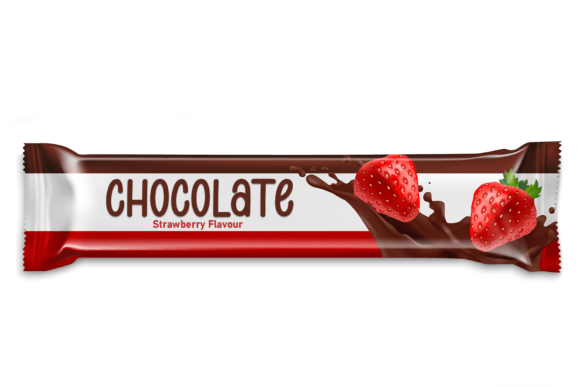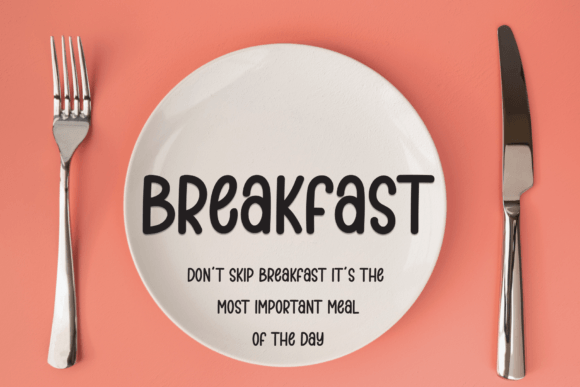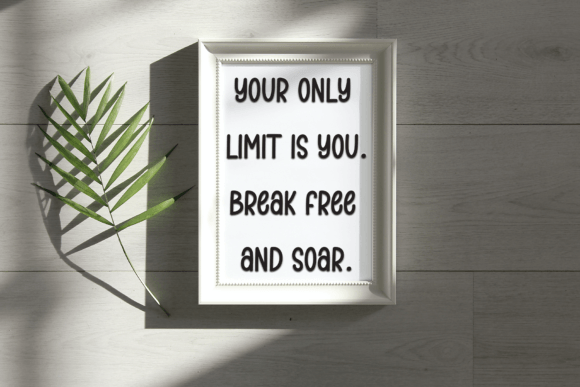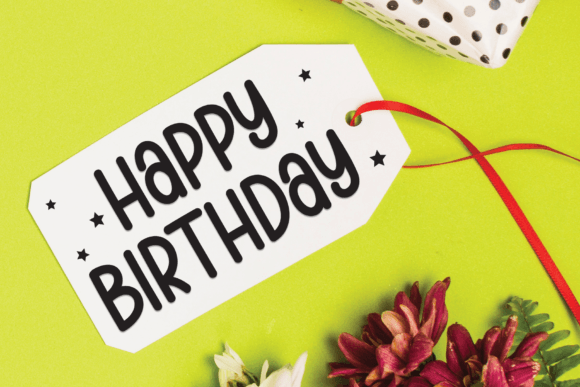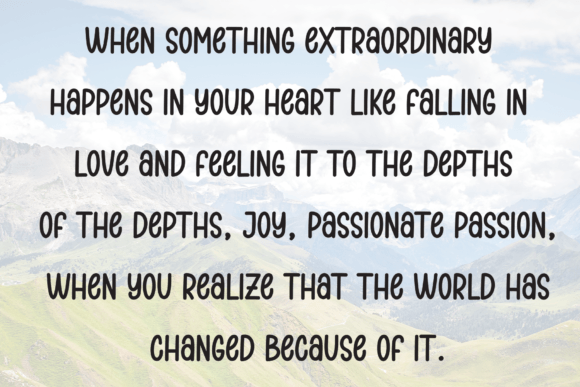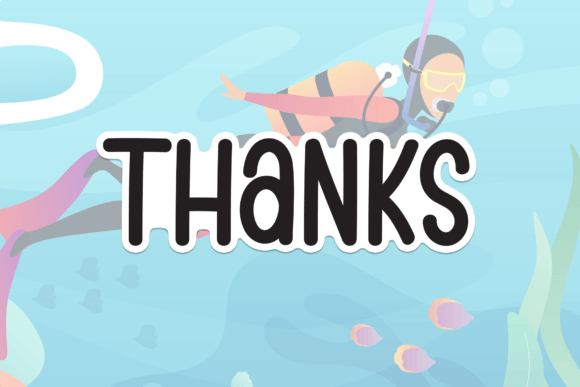
Introduction to Seadiving Font
Have you ever found yourself stuck on a creative project, searching for that perfect font to give it that extra oomph? I know I have. It’s like trying to find a missing puzzle piece – until you stumble upon it, the whole design just doesn’t feel complete. And then, it happened. I discovered the Seadiving Font, and my world was forever changed.
This sweet and friendly handwritten display font is like a breath of fresh air for designers. Its cute and fun design makes it the perfect addition to any project that needs a playful touch. Whether you’re writing wedding invitations, cards, or creating a custom logo, the Seadiving Font is sure to bring a smile to your face.
Key Features of Seadiving Font
- High-quality design resource perfect for creative projects, ideal for use in logos, branding, and typography-based designs.
- Features a unique, futuristic design aesthetic with a transparent background, allowing for seamless integration into any design.
- Designed with a high-resolution (300 DPI) and scalable vector graphics (SVG) capability for crisp, clear display across various mediums.
- Comes in a range of styles and weights, offering flexibility for designers to customize their creative project’s typography.
Honest Review: Seadiving Font
- ✨ The font’s unique, hand-drawn style adds a touch of elegance to any design.
- ✨ The font’s transparent background makes it easy to use in combination with other design elements.
- ✨ The font is well-suited for a variety of design projects, from logos to typography-based designs.
- ⚠️ The font’s font size may not be as scalable as other fonts, which can affect its readability in certain contexts.
Overall, I’m impressed with the Seadiving Font. Its unique style and high quality make it a great addition to any designer’s toolkit. While there are some limitations, I believe the benefits outweigh the drawbacks, making it a valuable resource for designers of all levels.
Seadiving Font
The Seadiving Font is a unique and versatile design resource perfect for creative projects. Its transparent background and high-quality design make it an ideal choice for various applications.
Tips for Getting the Most Out of Seadiving Font
To get the most out of the Seadiving Font, consider the following tips:
- Experiment with different font sizes and styles to achieve the desired effect.
- Use the transparent background to create a seamless design.
- Combine the Seadiving Font with other design elements to create a unique and visually appealing design.
Common Use Cases for Seadiving Font
The Seadiving Font is suitable for a variety of creative projects, including:
- Graphic